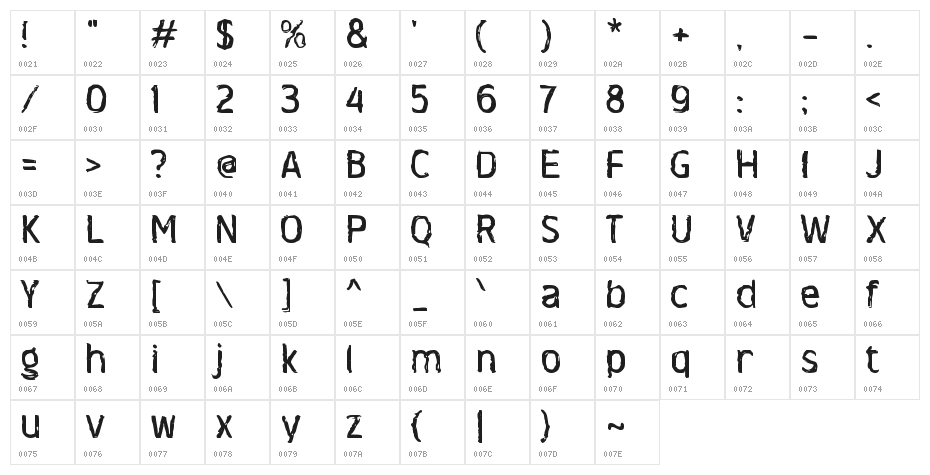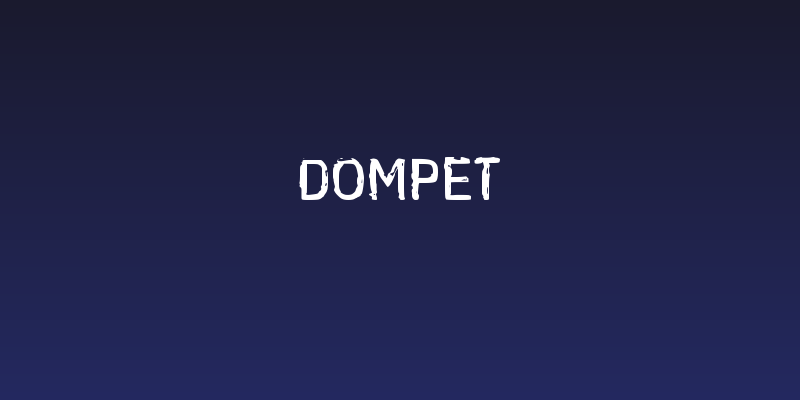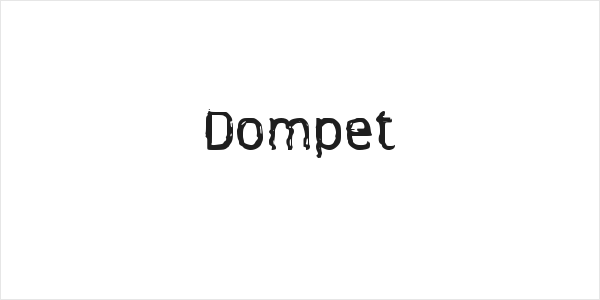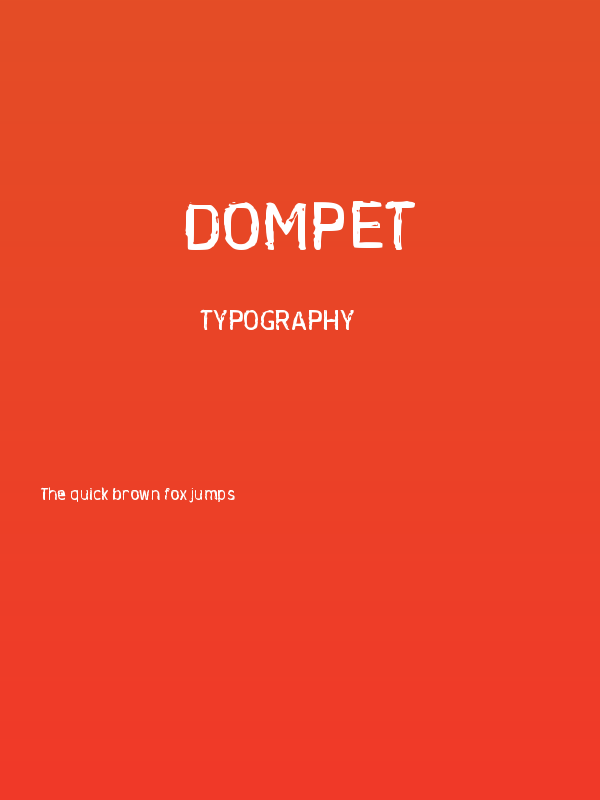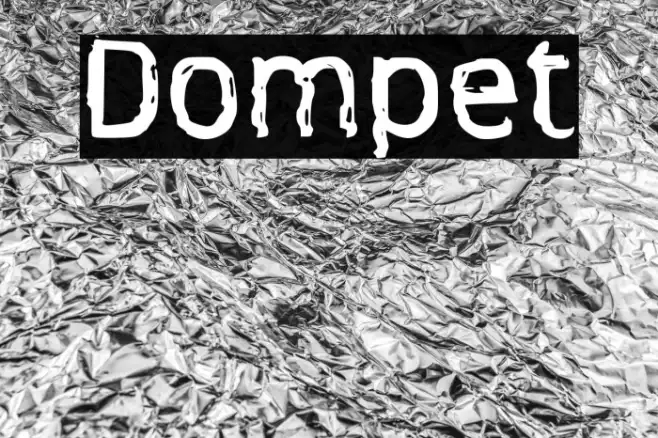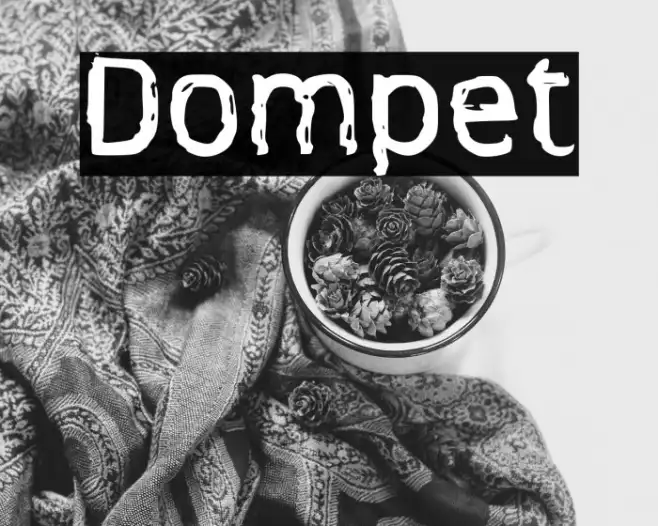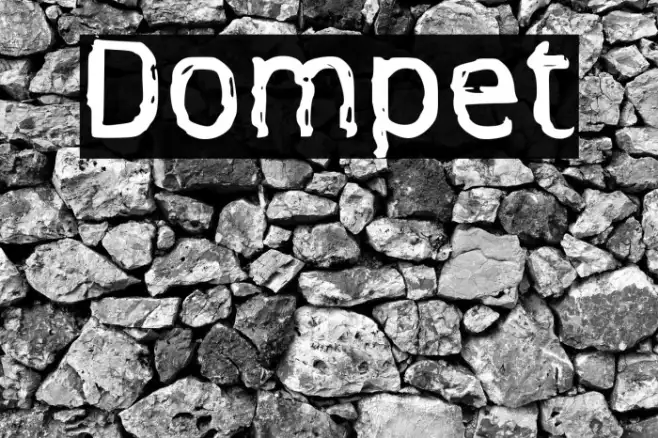
Dompet Font
Dompet Description
This font features a rugged, distressed appearance with uneven edges and a hand-drawn feel. The characters are bold and slightly irregular, giving them a dynamic and energetic look. The uppercase and lowercase letters maintain a consistent style, with a playful yet edgy vibe. Numbers and special characters follow the same design, adding to the font's cohesive appearance. The font's unique texture makes it stand out, ideal for projects that require a bold statement.
DOMPET UPPERCASE
DOMPET LOWERCASE
DOMPET OTHER CHARS